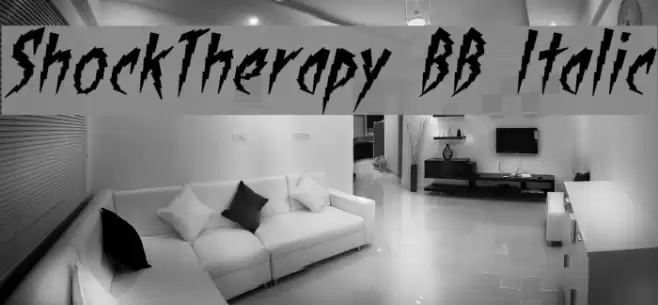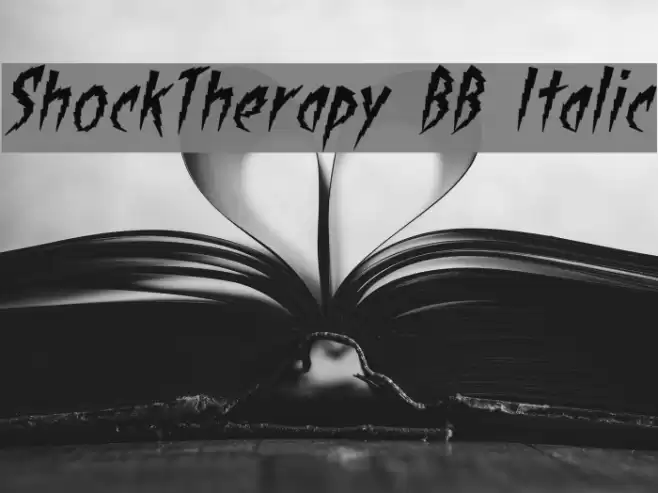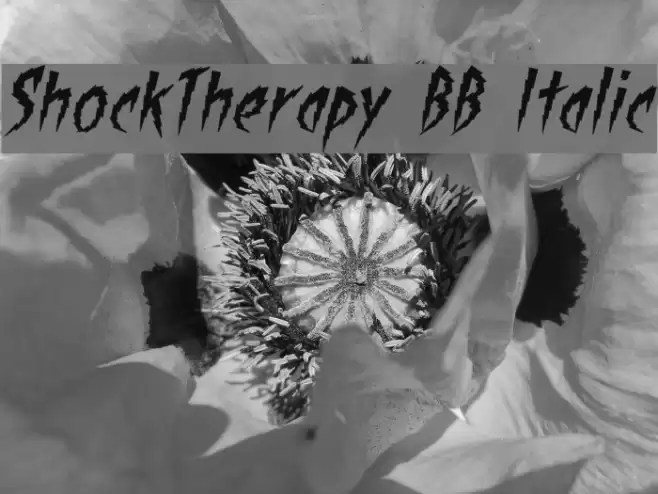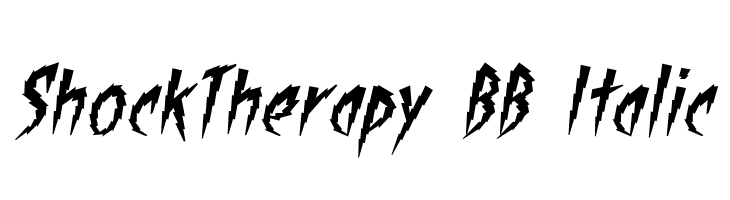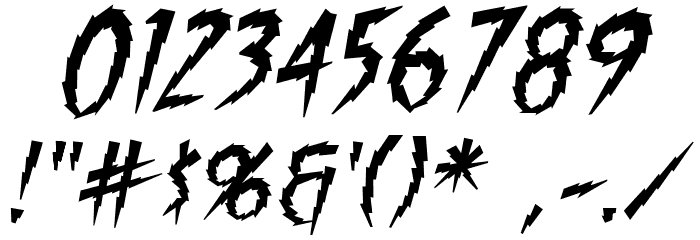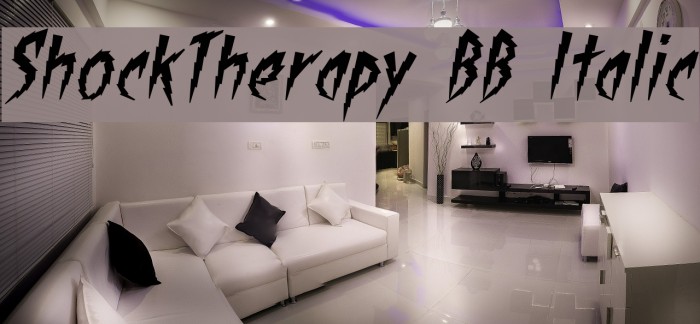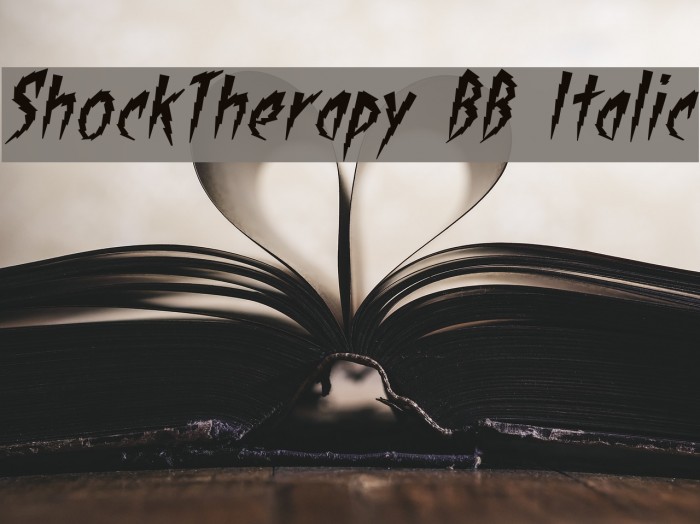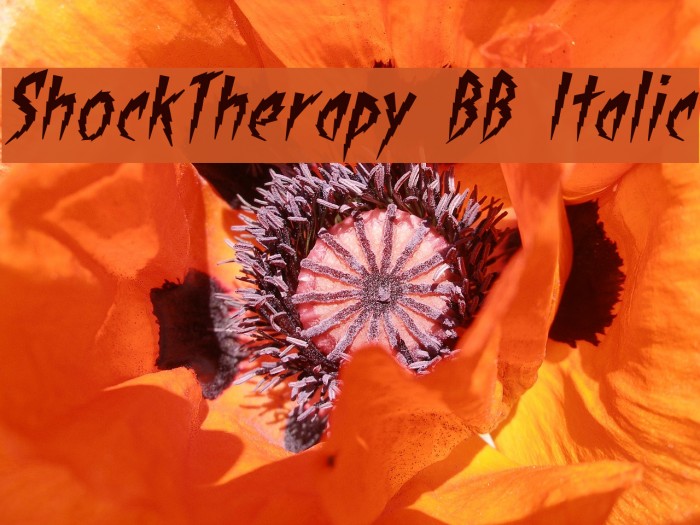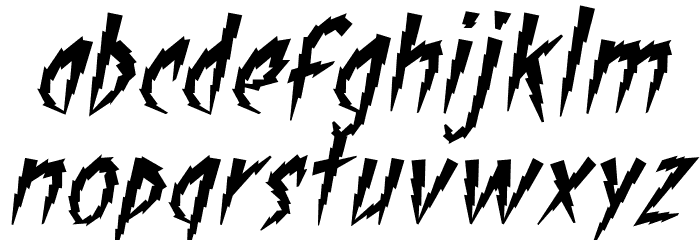
ShockTherapy BB Italic Font
ShockTherapy BB Italic Description
This font features a bold and jagged design, reminiscent of lightning bolts or electric shocks. The characters are sharply angled and dynamic, giving a sense of movement and energy. The uppercase and lowercase letters maintain a consistent style, with exaggerated spikes and points that create a striking visual impact. Numbers and special characters follow the same aesthetic, ensuring uniformity across all glyphs. This font's aggressive and edgy appearance makes it suitable for attention-grabbing designs.
A bold, jagged font with an electric, dynamic style from Uncategorized fonts.
- Proposed Projects: Ideal for music album covers, event posters, extreme sports branding, or any project needing a bold, energetic typeface.